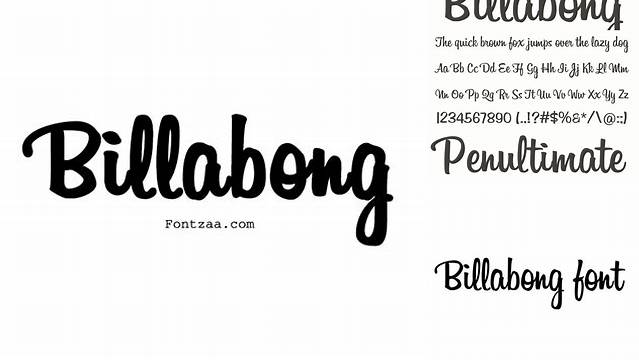
Billabong Regular Free Font: A Designer's Guide
Are you on the hunt for a stylish, free font that can add a touch of whimsy and elegance to your designs? Well, guys, look no further! The Billabong Regular font might just be the perfect solution for you. This font, with its unique and flowing script style, has become a favorite among designers for its versatility and ability to make any project stand out. In this article, we're diving deep into everything you need to know about the Billabong Regular font, from its origins and characteristics to its best uses and where you can snag it for free. So, buckle up and let's get started!
What Makes Billabong Regular Font So Special?
The Billabong Regular font isn't just another typeface; it's a statement. It's got this really cool, hand-lettered vibe that makes it feel personal and authentic. Think about it – in a world of super-crisp, corporate-looking fonts, Billabong swoops in with its smooth curves and playful flourishes, instantly grabbing your attention. One of the key things that sets Billabong Regular apart is its readability. Despite its elegant script style, the font maintains a clear and legible form, making it suitable for a variety of applications. Whether you're designing a logo, creating eye-catching headlines, or crafting social media graphics, Billabong Regular ensures that your message is conveyed with style and clarity. The font's flowing letterforms and subtle variations in stroke weight give it a natural, hand-drawn feel, adding a touch of personality and warmth to any design project. Its versatility shines through in various design contexts, from branding and packaging to web design and print materials. Billabong Regular has the ability to elevate your work, making it look more polished and professional while retaining a sense of creativity and originality. The appeal of Billabong Regular also lies in its ability to evoke a sense of nostalgia and retro charm. Its script style is reminiscent of vintage signage and hand-lettered advertisements, adding a touch of character and authenticity to your designs. This makes it an excellent choice for projects that aim to capture a classic or timeless aesthetic. With its balanced blend of elegance, readability, and versatility, Billabong Regular has earned its place as a go-to font for designers seeking to make a lasting impression.
The Best Uses for Billabong Regular Font
Okay, so you're digging the Billabong Regular font, but where can you actually use it? Well, the possibilities are pretty much endless, but let's break down some of the most popular and effective applications. For starters, this font is a total rockstar when it comes to logos and branding. Imagine a sleek, modern logo with the Billabong script adding a touch of personality – instant win! The font's flowing lines and unique character make it ideal for creating logos that are both memorable and visually appealing. Whether you're designing a logo for a boutique, a coffee shop, or a creative agency, Billabong Regular can help you craft a brand identity that stands out from the competition. Beyond logos, Billabong is also a fantastic choice for headings and titles. Think website headers, blog titles, or even book covers. It adds a touch of pizzazz without being too overwhelming. The font's elegant script style lends itself well to creating eye-catching headlines that draw readers in and make a statement. Whether you're promoting a product, announcing an event, or sharing a message, Billabong Regular can help you capture attention and leave a lasting impression. Social media is another arena where Billabong Regular shines. Its eye-catching design is perfect for grabbing attention in a busy feed. You can use it on your graphics, quotes, or even just to add some flair to your profile. The font's playful and inviting character makes it ideal for creating social media content that engages your audience and reflects your brand's personality. In addition to digital applications, Billabong Regular also works wonders in print. Think wedding invitations, greeting cards, or even posters. Its delicate yet legible style makes it perfect for adding a touch of elegance to any printed material. The font's timeless appeal and versatile nature make it a valuable asset for designers working on a wide range of print projects. Overall, Billabong Regular is a true chameleon in the font world. It can adapt to so many different styles and purposes, making it a must-have in any designer's toolkit.
Tips for Using Billabong Regular Font Effectively
Alright, you've got the Billabong Regular font downloaded and ready to go – awesome! But before you go wild and use it on everything, let's talk about some tips for using it effectively. After all, even the coolest font can look a little meh if it's not used properly. One of the most important things to keep in mind is readability. While Billabong Regular is a gorgeous script font, it's not always the best choice for long blocks of text. Think of it more as a headline hero or a logo legend rather than a body text buddy. The font's flowing lines and decorative flourishes can become difficult to read in large chunks of text, so it's best to reserve it for shorter elements like headings, titles, and branding materials. When using Billabong Regular, consider pairing it with a simpler, more legible font for body text. This will help create a balance between style and readability, ensuring that your message is conveyed clearly and effectively. A classic sans-serif font or a clean serif font can be excellent choices for complementing Billabong Regular, allowing its unique character to shine while maintaining overall clarity and visual appeal. Another tip is to think about contrast. Since Billabong Regular is a pretty delicate and flowing font, it can get lost if you pair it with other super-fancy elements. Try using it against a clean, minimalist background or with simple graphics. This will help the font stand out and make a statement without being overshadowed by competing elements. The font's elegance and personality are best showcased when it's given room to breathe and not competing for attention with other design features. Experiment with different sizes and weights of Billabong Regular to achieve the desired visual impact. The font's versatile nature allows for a range of applications, from bold and eye-catching headlines to subtle and refined accents. By adjusting the font's size and weight, you can create a visual hierarchy that guides the reader's eye and emphasizes key elements of your design. Ultimately, the goal is to use Billabong Regular in a way that enhances your overall design and communicates your message effectively. By keeping these tips in mind, you can leverage the font's unique qualities and create visually stunning projects that stand out from the crowd.
Billabong Regular Font: A Design Game-Changer
So, there you have it, folks! The Billabong Regular font is more than just a typeface; it's a design game-changer. Its unique, flowing style can add a touch of elegance and personality to any project. Whether you're designing a logo, creating eye-catching headlines, or crafting social media graphics, Billabong Regular is a versatile tool that can elevate your work and make it stand out. We've covered everything from what makes this font so special to where you can find it for free and how to use it effectively. Now it's your turn to get creative and start experimenting! Download Billabong Regular, play around with it, and see how it can transform your designs. With its balanced blend of elegance, readability, and versatility, this font has the potential to become a go-to choice for your creative endeavors. Remember to consider its readability, contrast, and pairing options to ensure that you're using it in a way that enhances your overall design and communicates your message effectively. The possibilities are endless, and the only limit is your imagination. So go ahead, unleash your creativity and let Billabong Regular help you make a lasting impression!